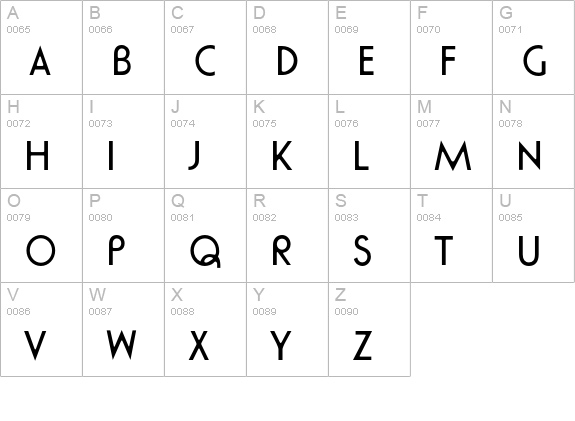
Poppea Font Details
Poppea is a stylish and elegant font that exudes sophistication and charm. With its graceful curves and delicate strokes, Poppea is perfect for adding a touch of class to any project. This versatile font is suitable for a wide range of design applications, from logos and branding to invitations and signage. The best part? Poppea is completely free to download at FontsMarket.com. This means that you can elevate your designs without breaking the bank. Whether you're a seasoned designer looking for a new favorite font or a beginner exploring typography for the first time, Poppea is sure to impress with its timeless appeal and classic beauty. Download Poppea today and let your creativity shine with this stunning typeface.